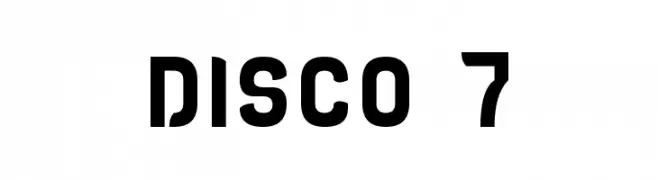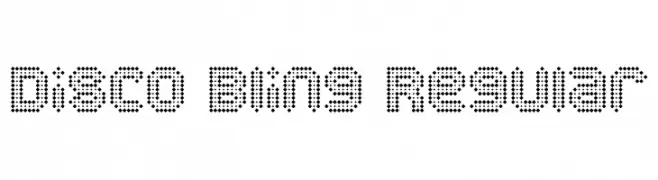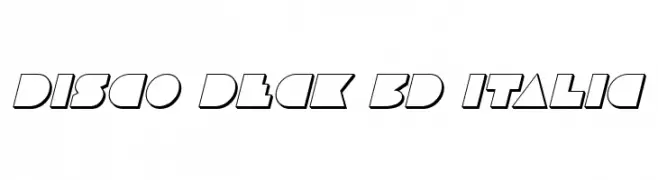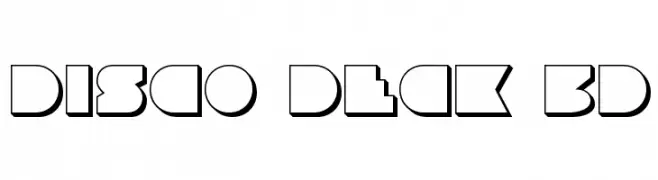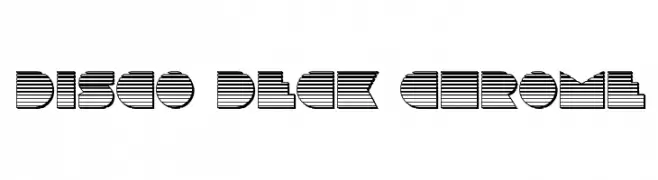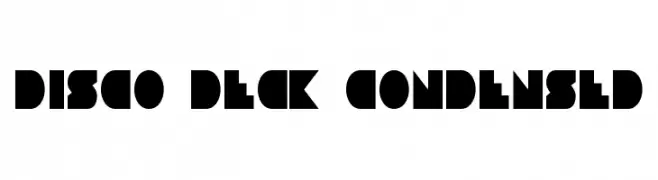
• disco 3 fenotype
A bold, decorative font with a retro, layered design and a three-dimensional effect.
• DISCO 7
A bold, modern font with geometric influences and strong readability.
• Disco Bling Regular
A decorative font composed of small dots, creating a retro and playful appearance.
• Disco Deck
A bold, geometric font with a retro disco vibe.
• Disco Deck 3D
A bold, geometric font with a 3D effect and retro disco vibe.
• Disco Deck 3D Italic
A bold, geometric 3D italic font with a dynamic and futuristic style.
• Disco Deck Chrome
A bold, geometric font with a retro striped pattern.
• Disco Deck Chrome Italic
A bold, italicized font with a striped, futuristic design.
• Disco Deck Chrome Italic
A bold, striped, italicized font with a futuristic and dynamic style.
• Disco Deck Condensed
A bold, geometric font with a retro, disco-inspired style.